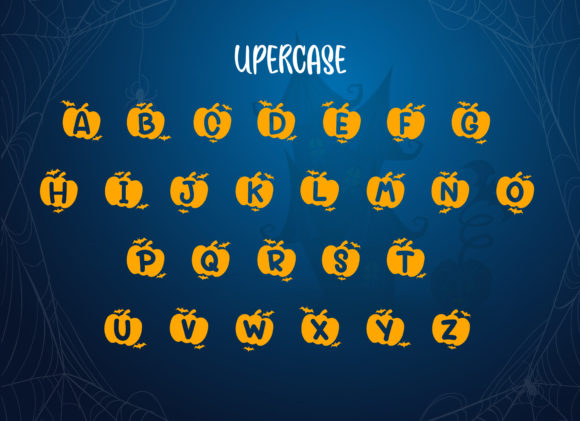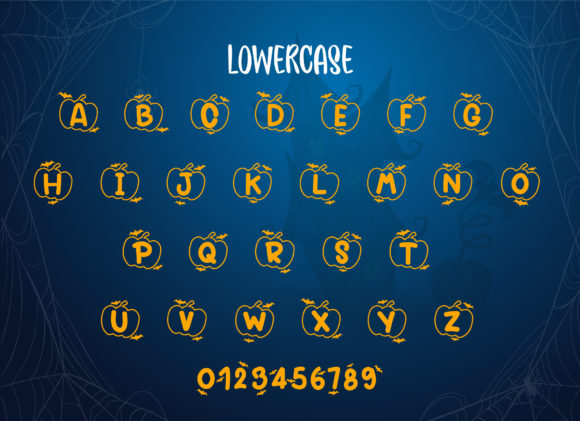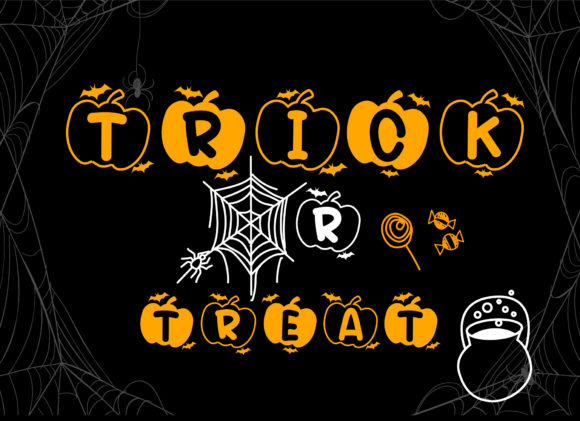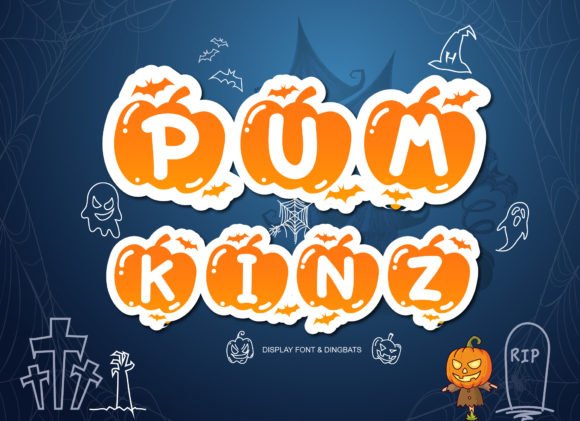
Introduction to Pumkinz Font
Pumkinz is a unique and very interesting dingbats font.
Quirky and playful, this font looks incredibly adept for each of your Halloween projects .
Key Features of Pumkinz Font
Why Choose Pumkinz Font?